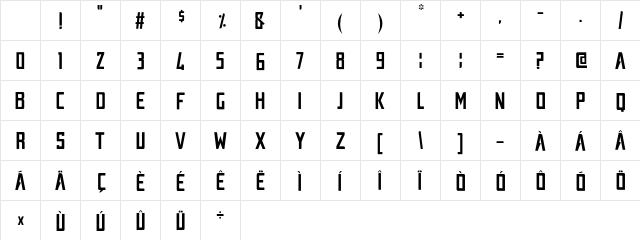
Complete AUSTRALIA TITLE glyph index. Displaying only characters natively supported by AUSTRALIA TITLE font.
AUSTRALIA is a composed and adaptable typeface that performs quietly and consistently across a wide range of design contexts.